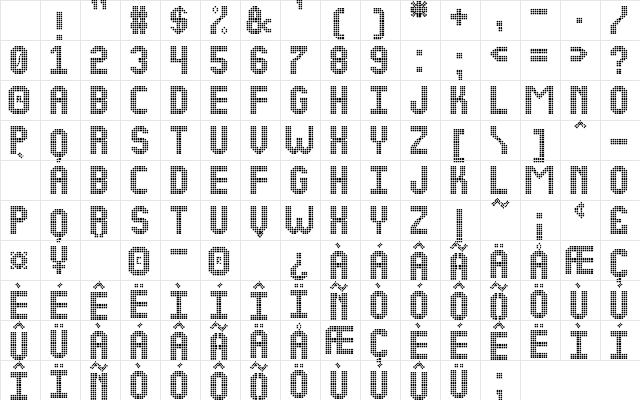
Complete NEW LED DISPLAY ST Regular glyph index. Displaying only characters natively supported by NEW LED DISPLAY ST Regular font.
NEW LED DISPLAY ST is built around its visual character rather than neutral utility - its distinctive forms are designed to make an impression at display sizes.
Font Pairing: Pair with a clean neutral sans-serif for body copy to let NEW LED DISPLAY ST's character lead without overwhelming the composition.
Pro Tip: Use NEW LED DISPLAY ST exclusively at display sizes - it was designed to be seen, not read at length. Let a neutral companion handle body copy.